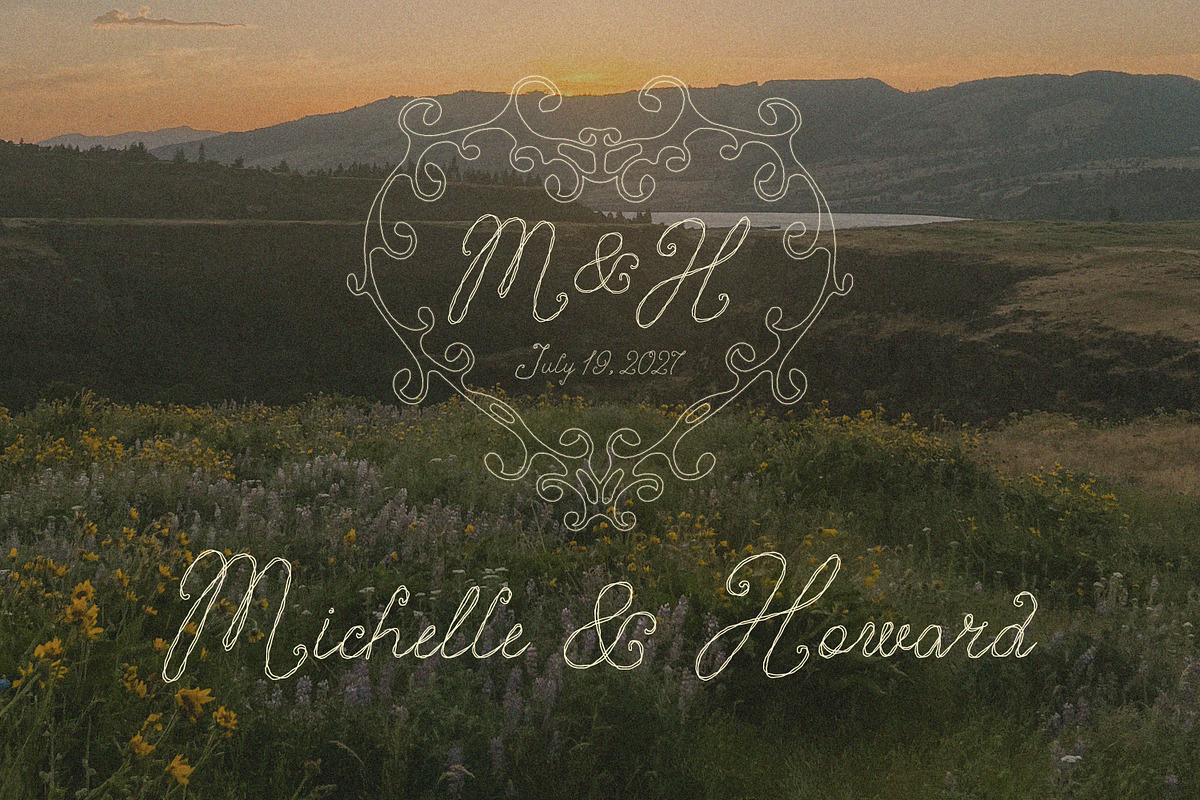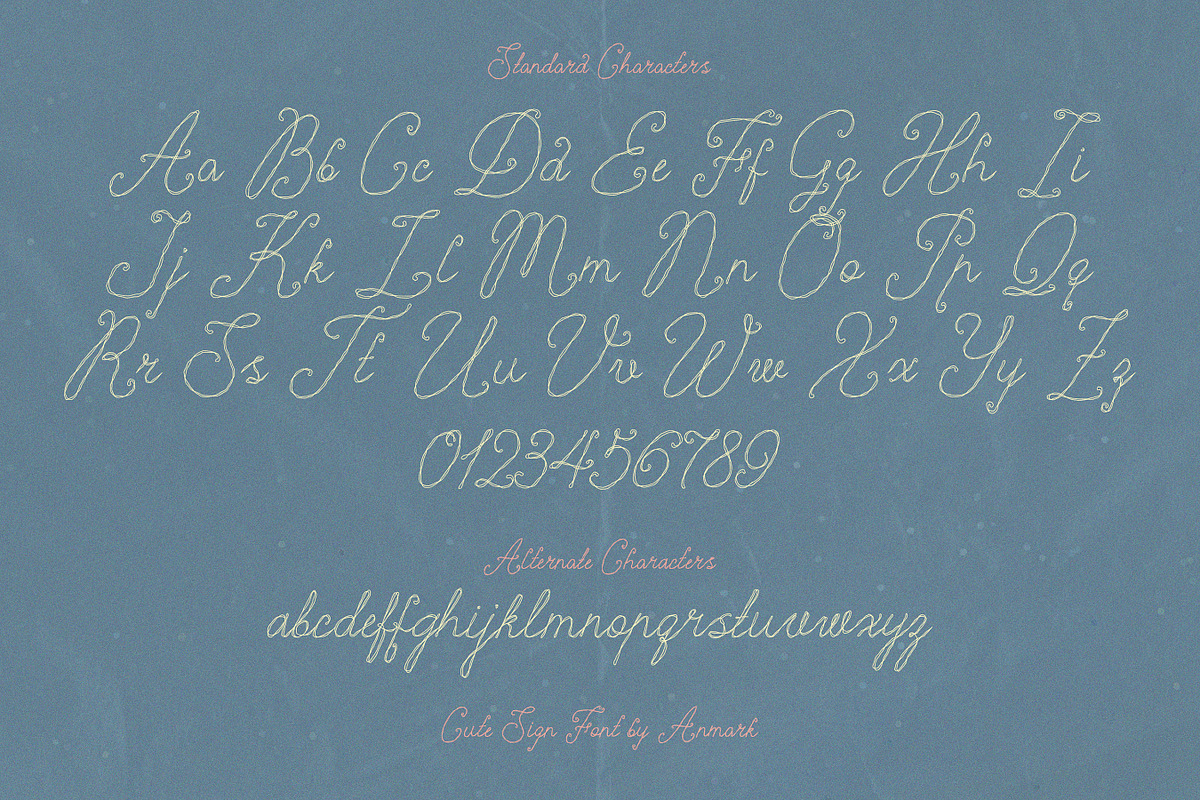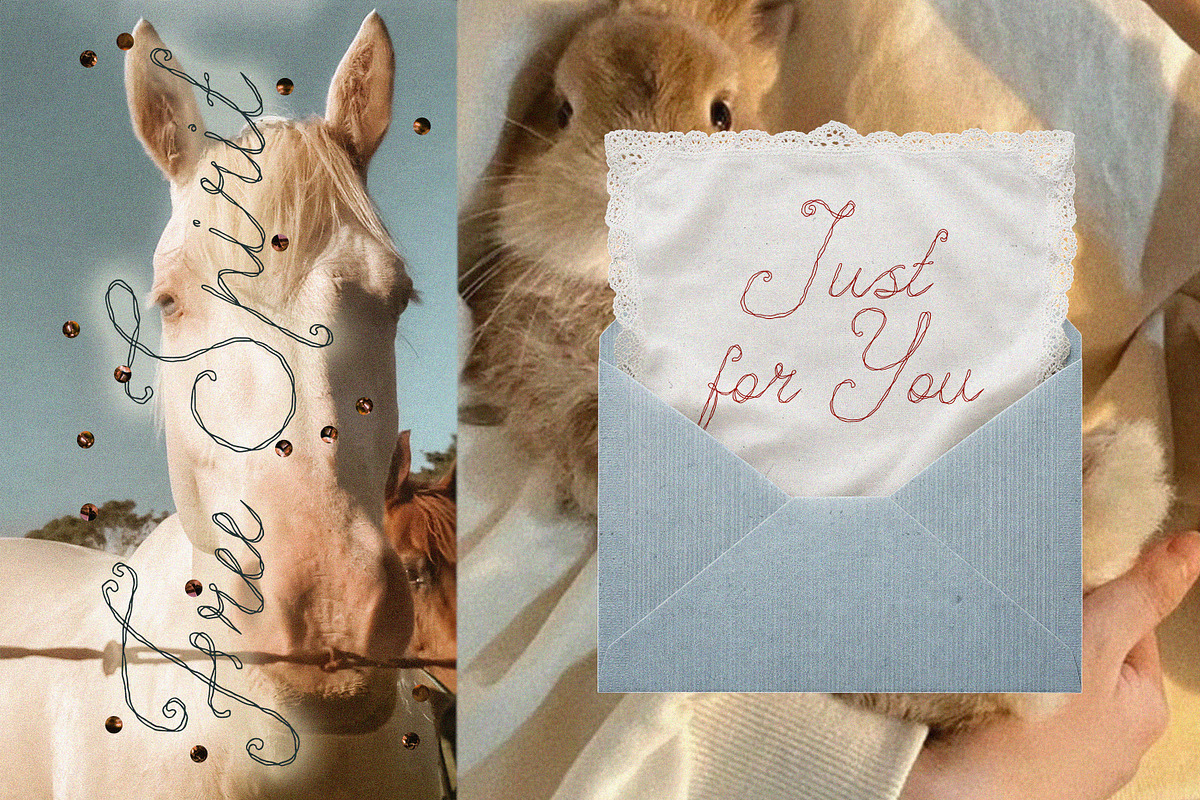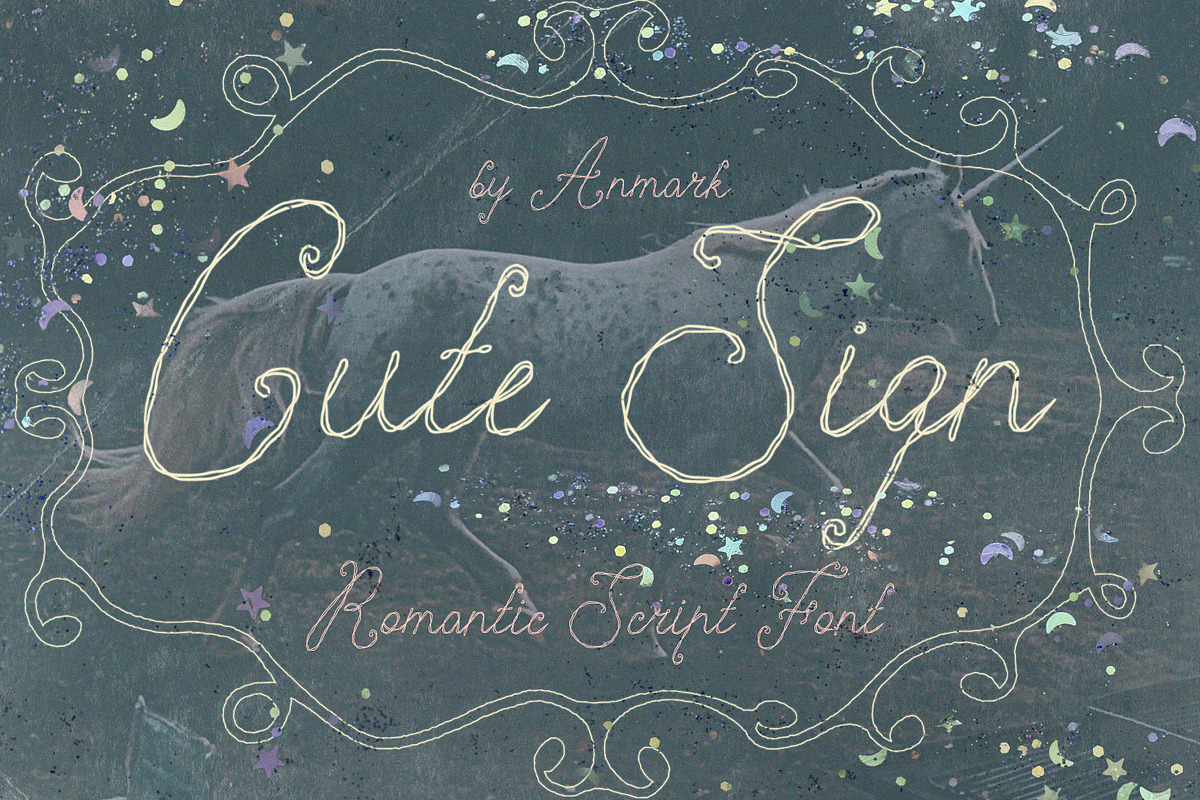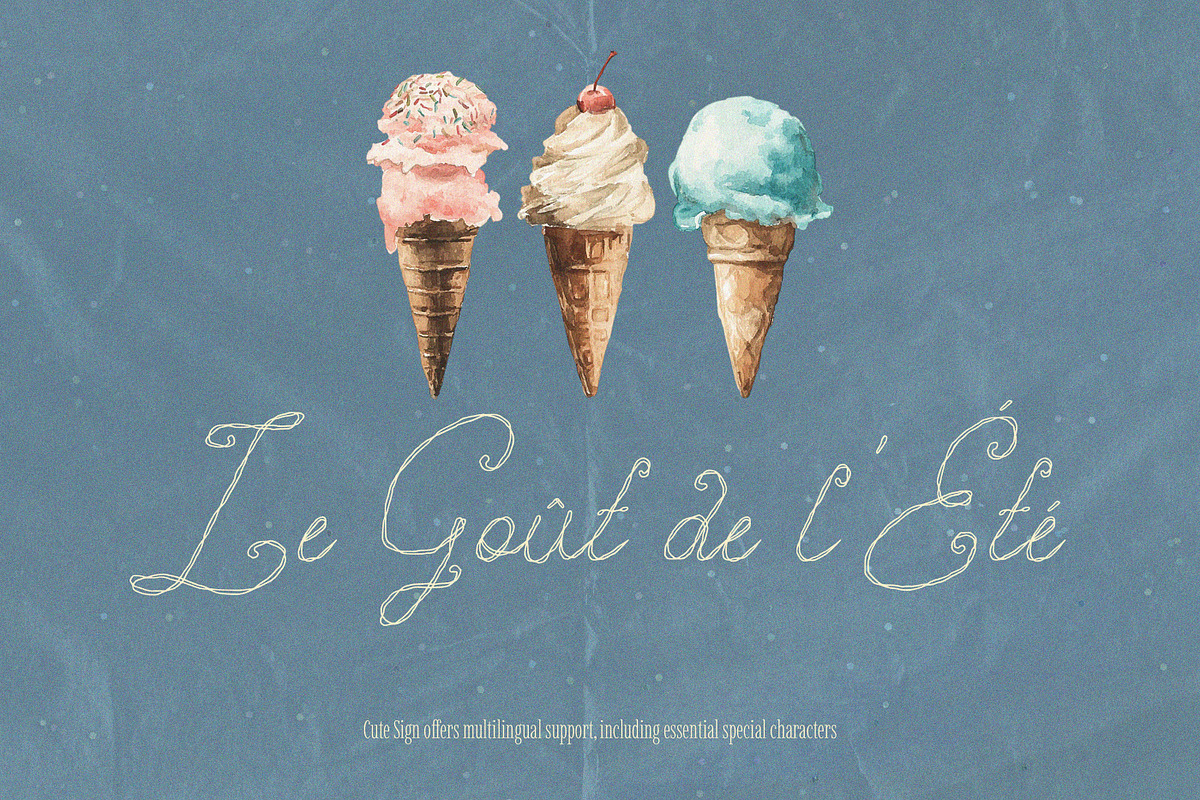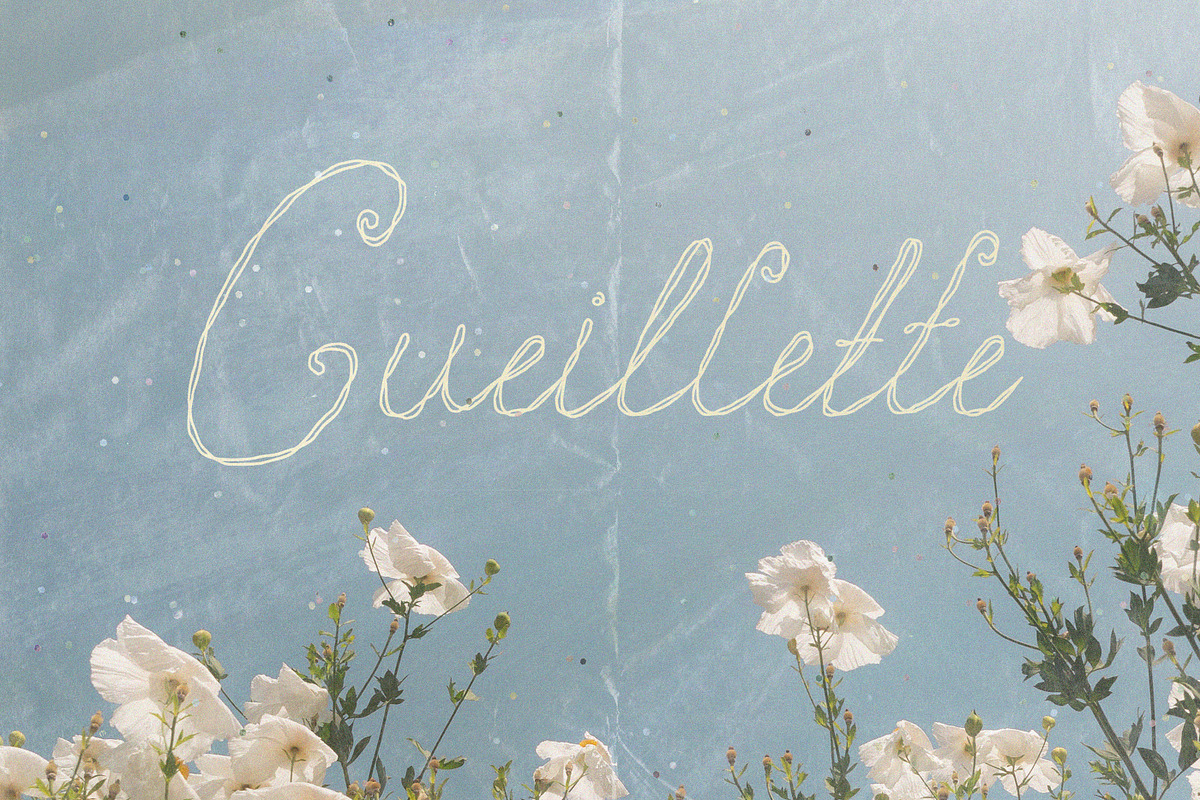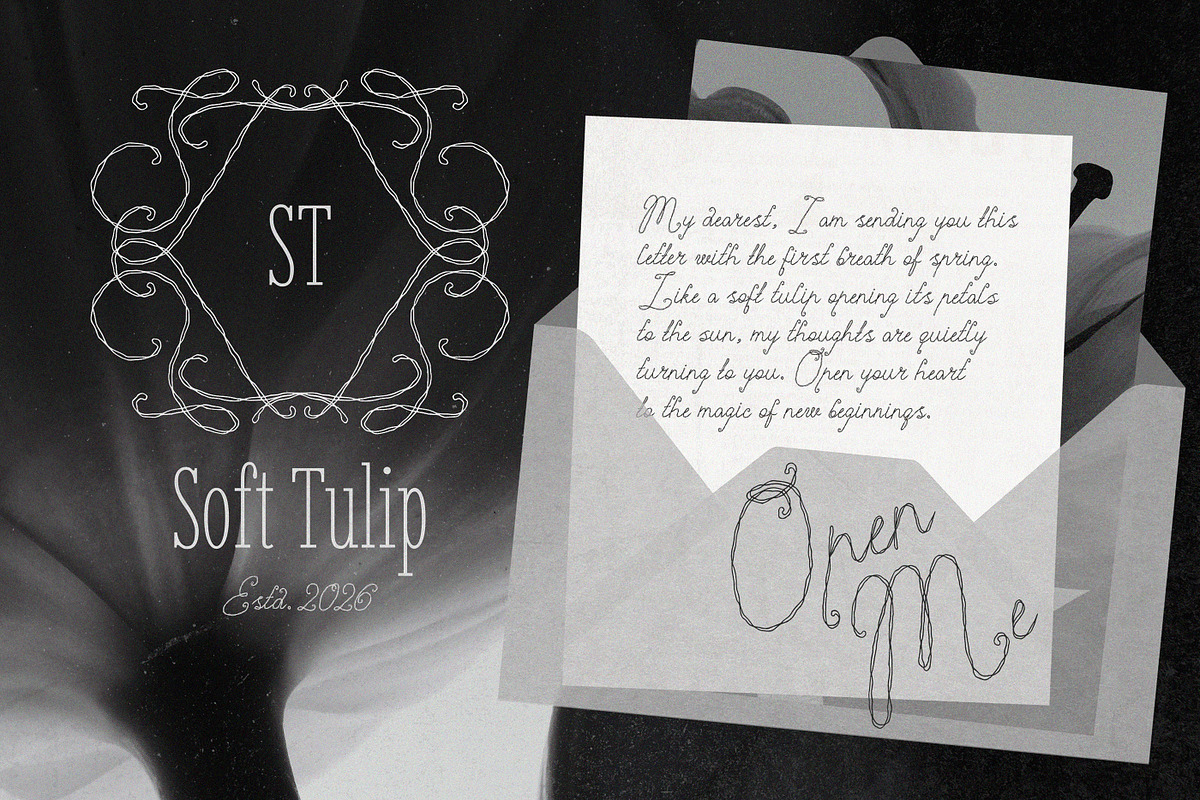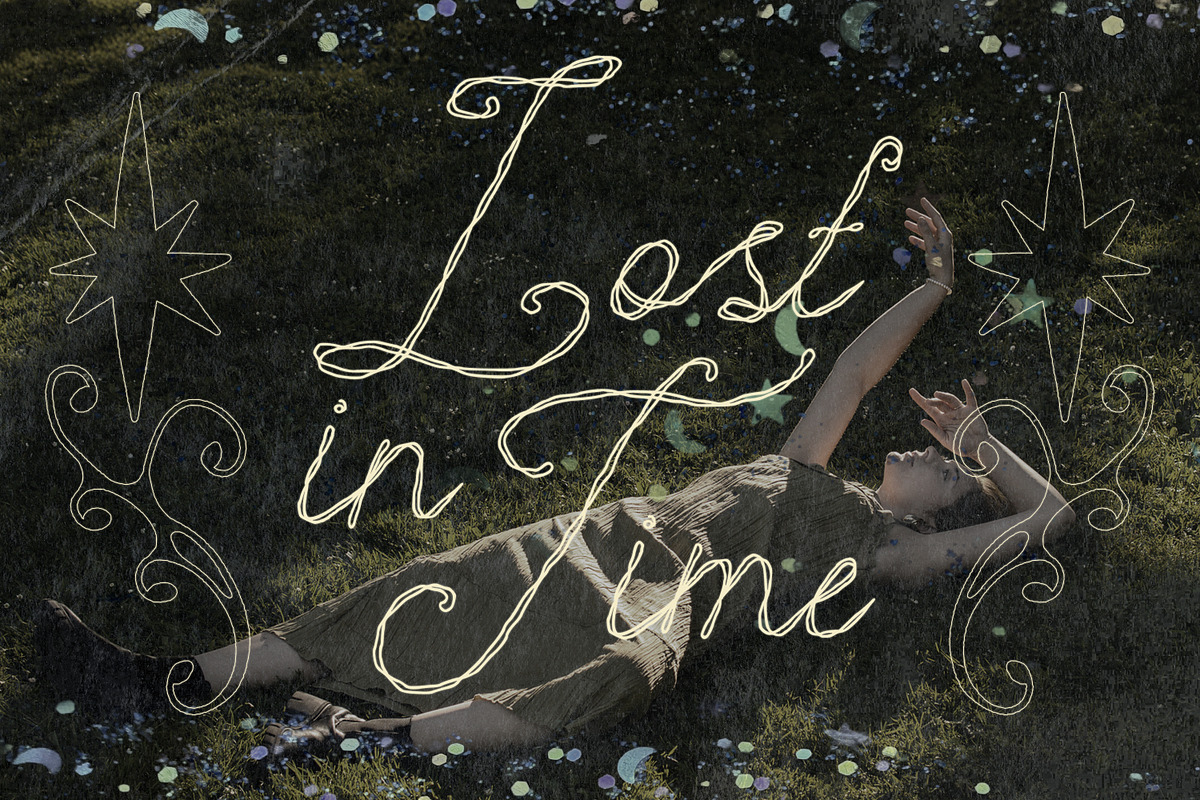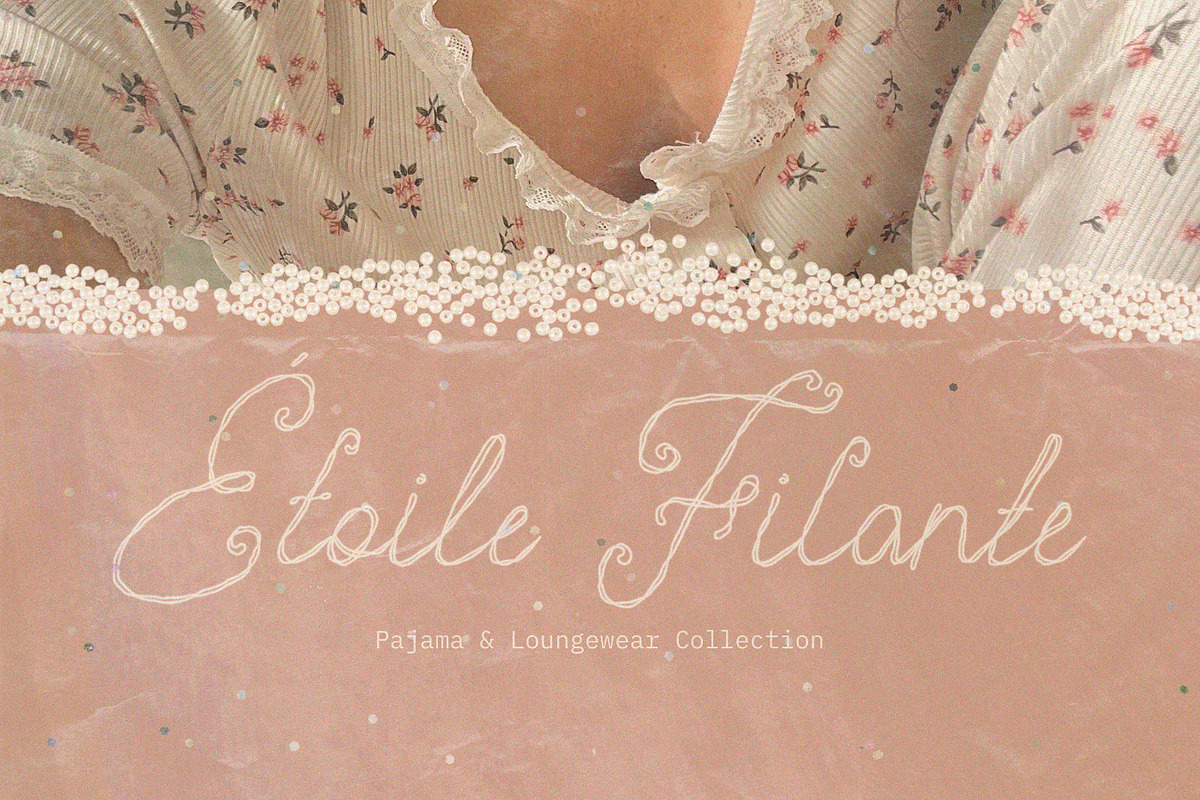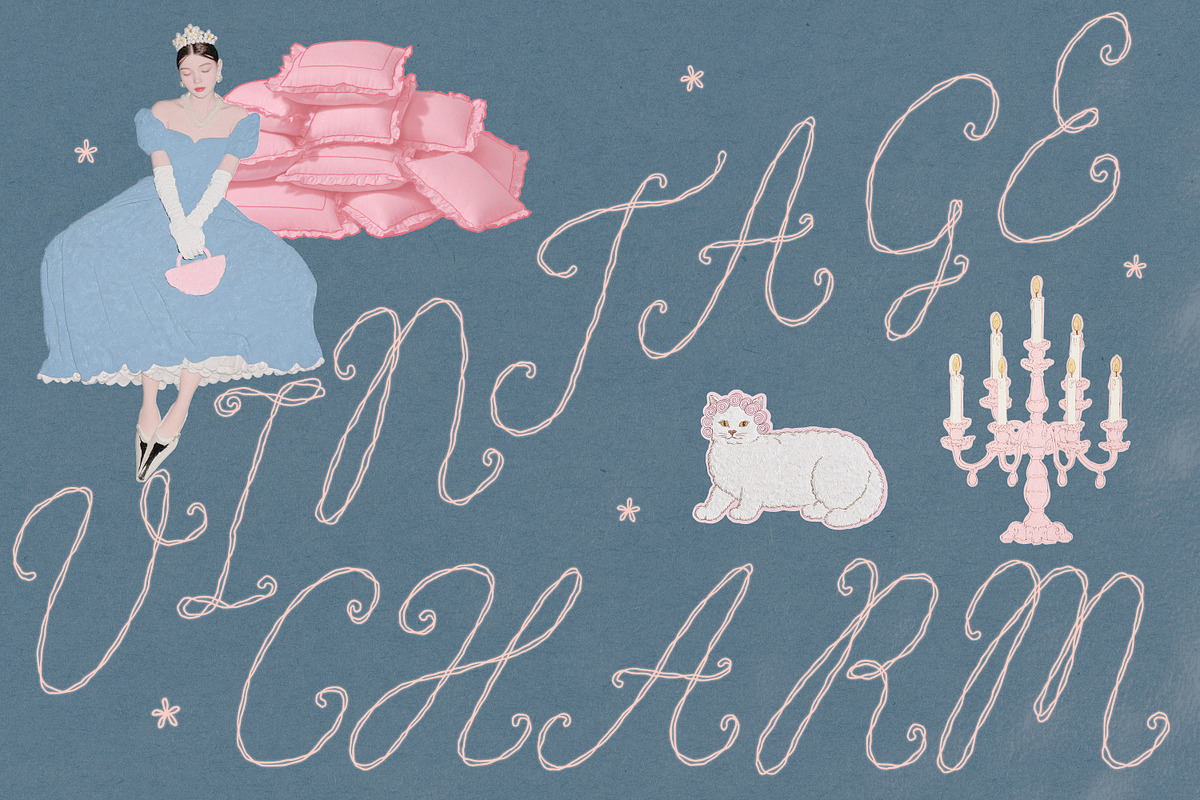
Cute Sign Romantic Textured Script
Cute Sign is a textured romantic script font designed for fairy tale aesthetics and handmade branding.
The typeface features interwoven fine lines that mimic the texture of thin wire, organic thread, or a hand-drawn sketch. The shaky outlines give each letter a unique, naive character. It is an original calligraphy script suitable for projects that require a quiet, delicate, and personal feel.
Applications: This display script works best for cozy branding, wedding stationery, book covers, greeting cards, nursery decor, and packaging. It is a good choice for romantic nightwear brands, flower shops, and aesthetic social media graphics.
Lowercase Alternates: Switch between characters to enhance the handmade look.
Multilingual Support: Includes essential accented characters for international designs.
High-Resolution Texture: Maintains readability on dark and textured backgrounds.